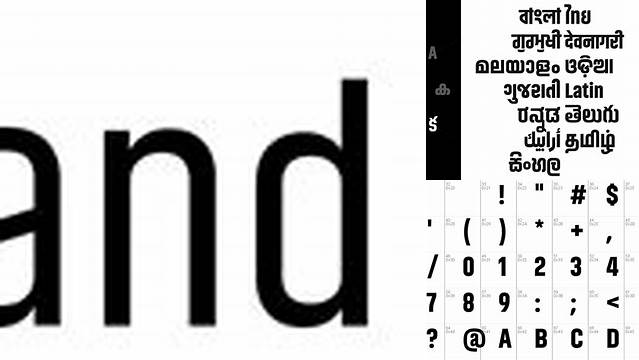
Hey guys! Are you looking to spice up your designs with a fresh, unique font? Well, you've come to the right place! We're diving deep into the world of the Shorif Akhand font, a fantastic option for anyone wanting to add a touch of flair to their projects. I'll guide you through everything, including how to get a free download and how to make the most of this awesome typeface. Whether you're a seasoned designer or just starting out, this guide is packed with useful info to help you elevate your work. So, buckle up, and let's explore the Shorif Akhand font together!
What is Shorif Akhand Font?
Okay, so first things first: what exactly is the Shorif Akhand font? Basically, it's a stylish and versatile typeface that's gaining popularity in the design community. It's known for its distinctive look, which combines elegance with a modern feel. The font's design makes it suitable for a wide range of applications, from headlines and logos to body text and creative projects. Shorif Akhand is designed with clean lines and a balanced structure, making it easily readable and visually appealing. It typically includes various weights and styles, offering designers flexibility in their projects. Because of this, you can use it in a variety of ways to fit your needs. Think of it as a secret weapon in your design arsenal. It is perfect for anyone who wants to stand out! The font's unique character gives a professional yet creative feel to any project, making it ideal for branding, marketing materials, and personal use. It's all about finding the right font for your project. So, whether you're working on a website, a print design, or social media graphics, the Shorif Akhand font could be the perfect solution to achieve that desired look. You can find the Shorif Akhand font across numerous platforms, and finding the free download is not always easy. Therefore, we will tell you where to find it below!
Design Tips and Best Practices for Shorif Akhand
Now that you've got the font and know how to install it, let's talk about making the most of it. Shorif Akhand font can make a huge impact on your designs. It's all about applying it effectively. Here are some design tips and best practices to help you get the most out of it:
- Choose the Right Weight and Style: The Shorif Akhand font comes in various weights (like light, regular, bold) and styles (such as italic). Select the weight and style that best suits your design's purpose. For example, bold is great for headlines and titles to grab attention, while regular might be better for body text for readability.